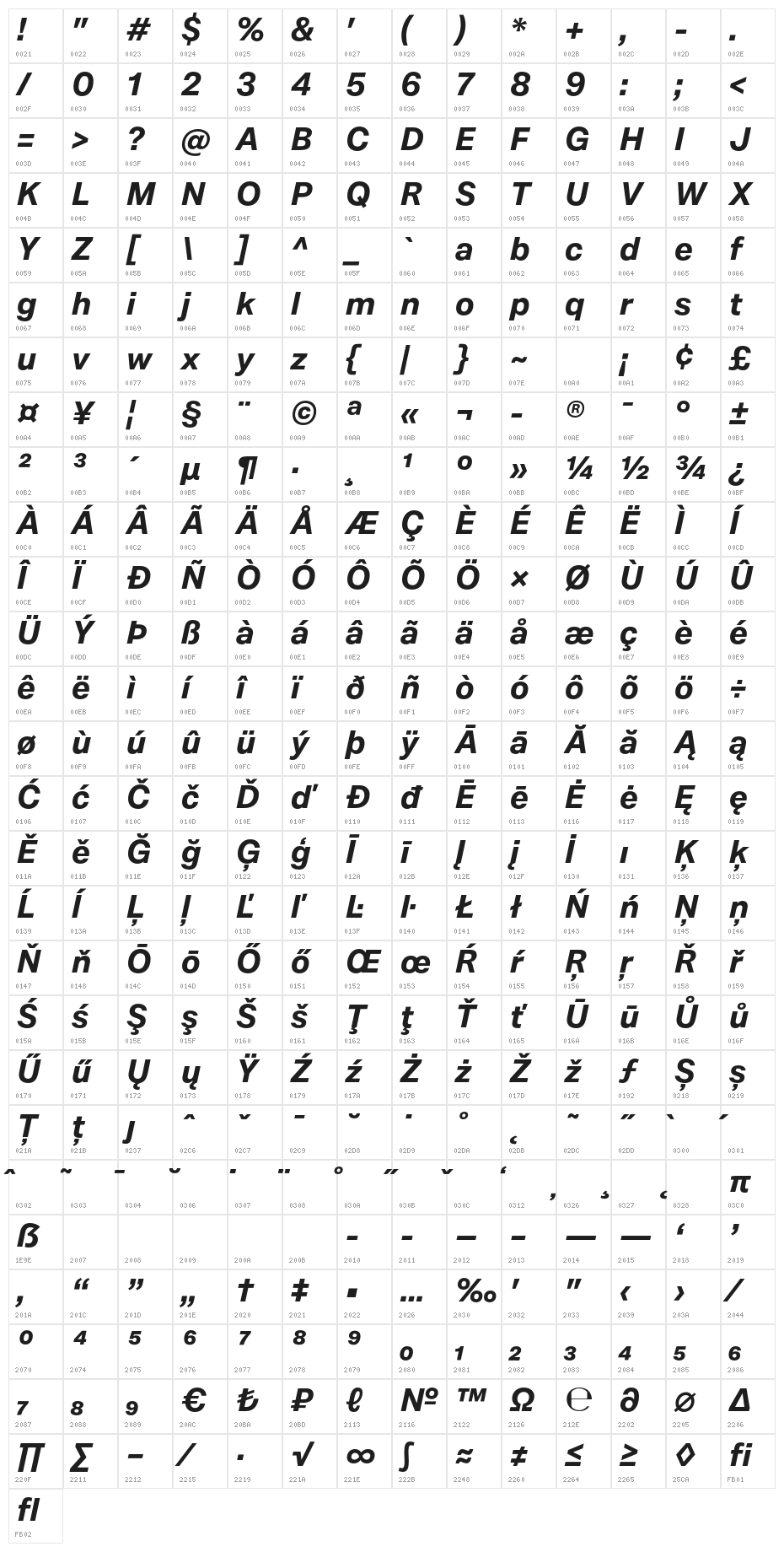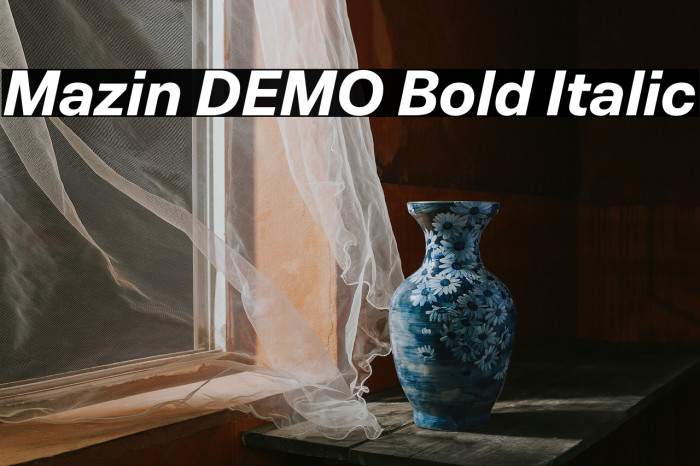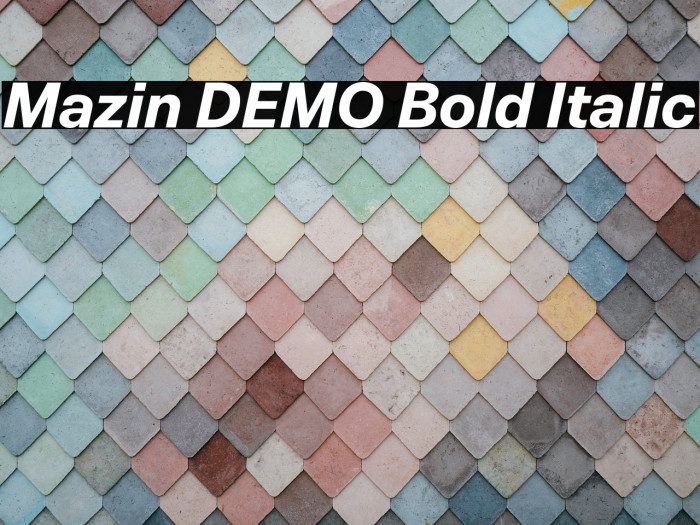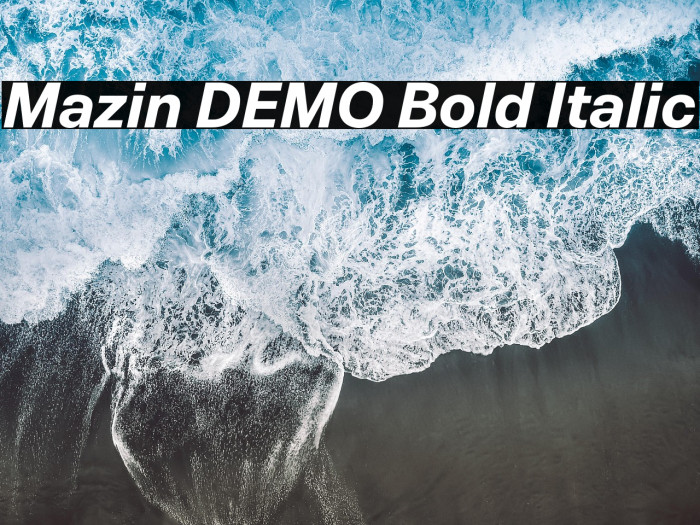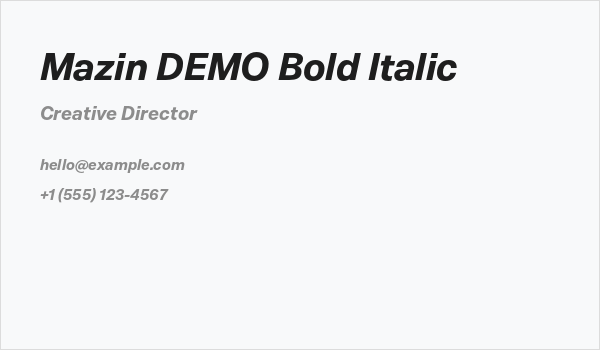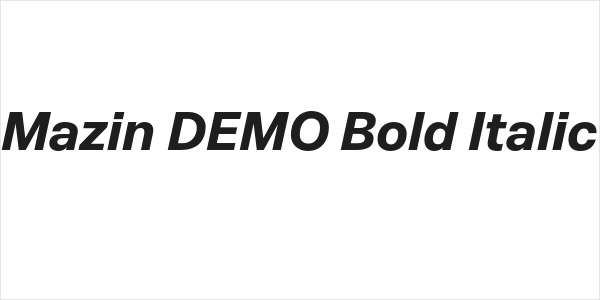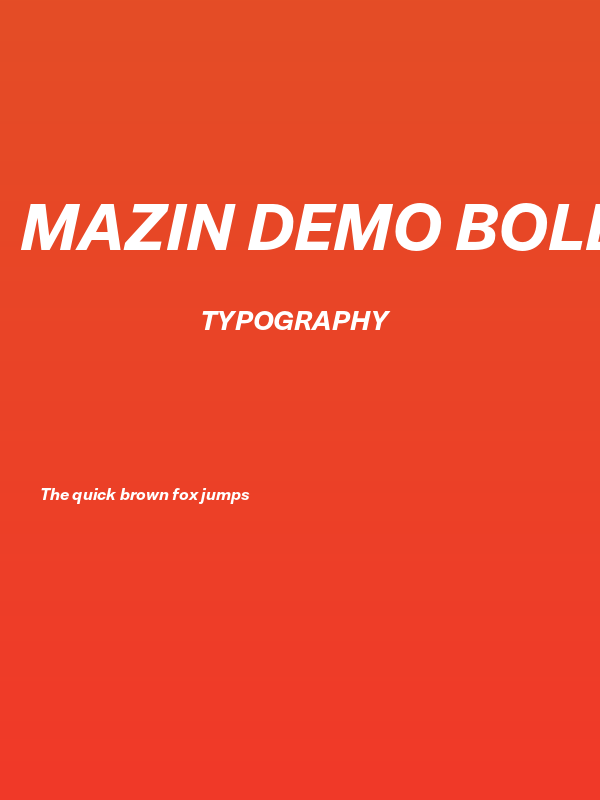
Mazin DEMO Bold Italic Font
Mazin DEMO Bold Italic Description
This font exhibits a bold and italicized style, characterized by its strong and assertive presence. The letters are slightly slanted, giving a dynamic and forward-moving appearance. The strokes are thick and consistent, providing a sense of stability and confidence. The characters are well-defined with smooth curves and sharp edges, making them highly legible. The numbers and special characters maintain the same boldness and clarity, ensuring uniformity across all elements. This font is suitable for making impactful statements and capturing attention.
| Proposed Projects | Ideal for branding, advertising, headlines, and any project requiring a bold statement. |